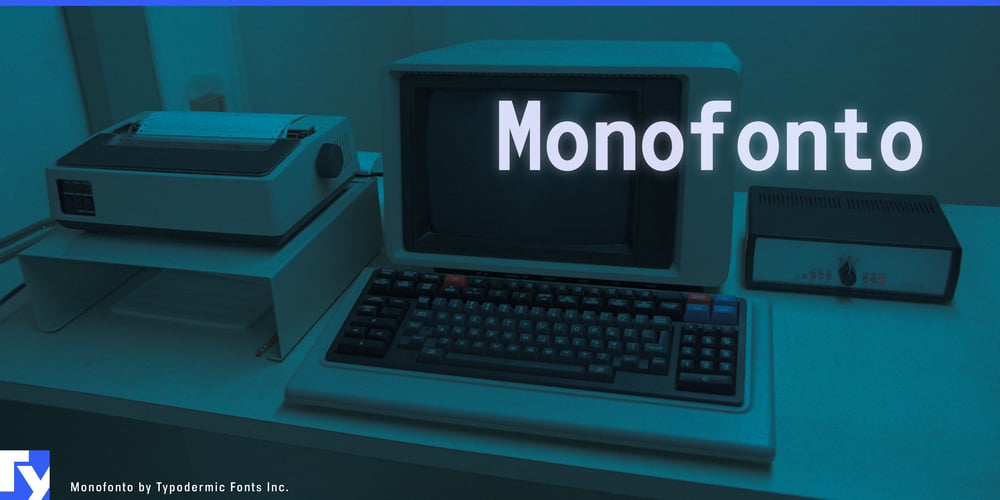
Monofonto
Monofonto font
Monofonto Font Family was designed by Ray Larabie and published by Typodermic. Monofonto contains 4 styles and family package options. Step into the world of Monofonto, a typeface that marries technical precision with elegant simplicity. Born in 1999 and refined through decades of digital evolution, this monospaced sans-serif has become the silent workhorse of countless designs, earning its place in the toolkits of discerning designers and developers alike.Monofonto’s compact yet robust character strikes a delicate balance—commanding attention without dominating space. Its carefully calibrated strokes ensure crystal-clear legibility, even when reduced to minuscule sizes. This makes Monofonto an invaluable asset for technical documentation, scientific papers, and code displays where every character carries weight. From intricate mathematical formulae to precise currency notations, Monofonto’s extensive character set stands ready to tackle the most demanding typographic challenges.The typeface family offers three distinct styles—Regular, Italic, and Bold-Italic—providing the flexibility to create nuanced hierarchies within your documents. This versatility allows Monofonto to seamlessly transition from body text to emphasis, maintaining a cohesive visual language throughout your projects. Monofonto’s global reach extends far beyond its technical prowess. Its character set spans a vast linguistic landscape, embracing the intricacies of Greek, Vietnamese, and a wide array of Cyrillic-based languages. From the rolling hills of the Basque Country to the bustling streets of Hanoi, Monofonto speaks the language of precision with a truly international accent.Whether you’re crafting cutting-edge user interfaces, formatting complex research papers, or simply seeking a typeface that whispers “accuracy” with every glyph, Monofonto stands as a testament to the enduring power of thoughtful design. It’s a commitment to clarity in an increasingly complex digital world. Choose Monofonto, and let your typography speak volumes about your attention to detail and commitment to excellence.